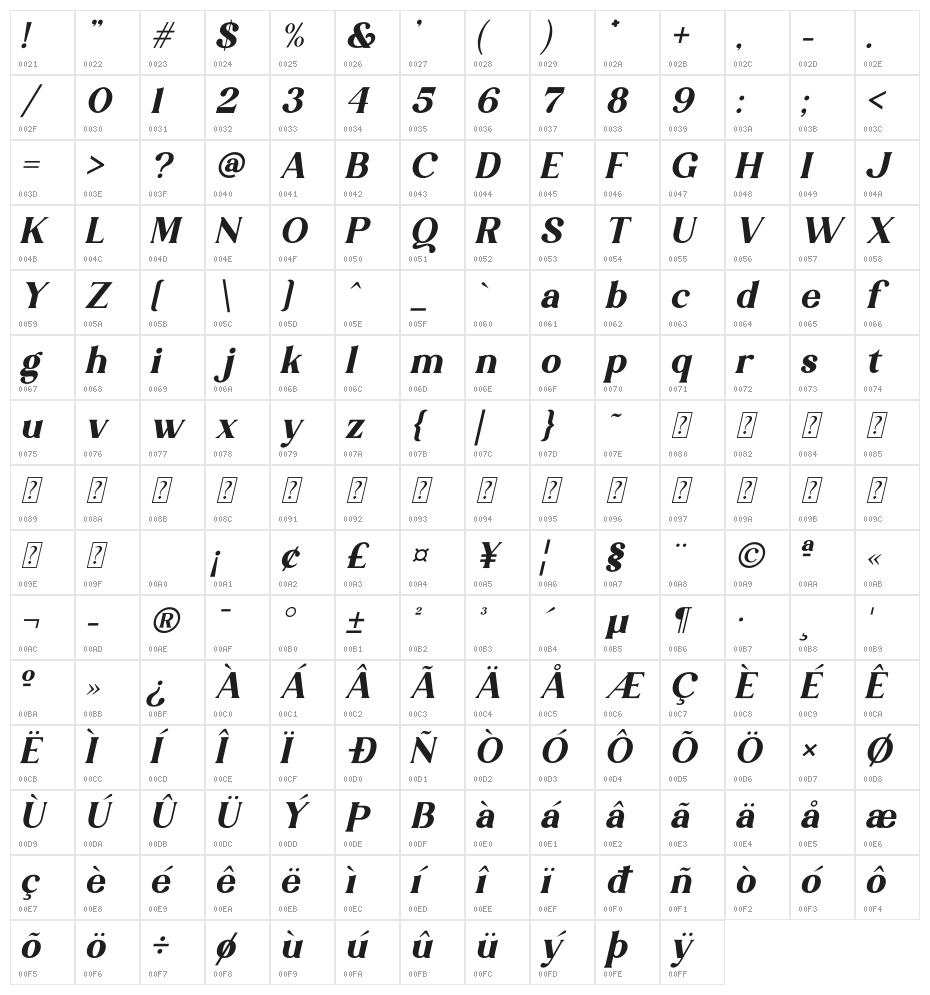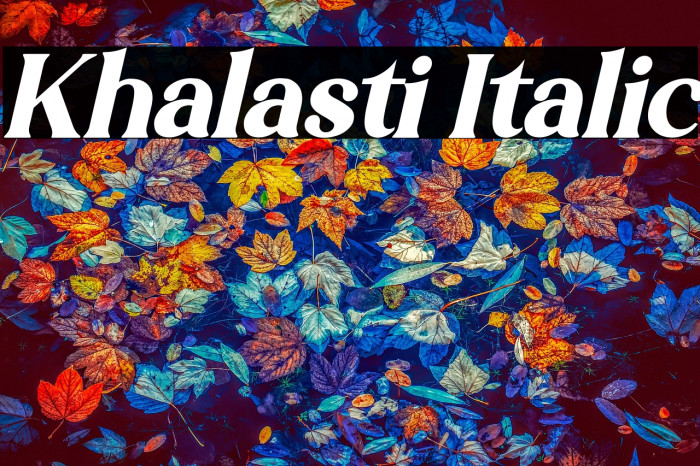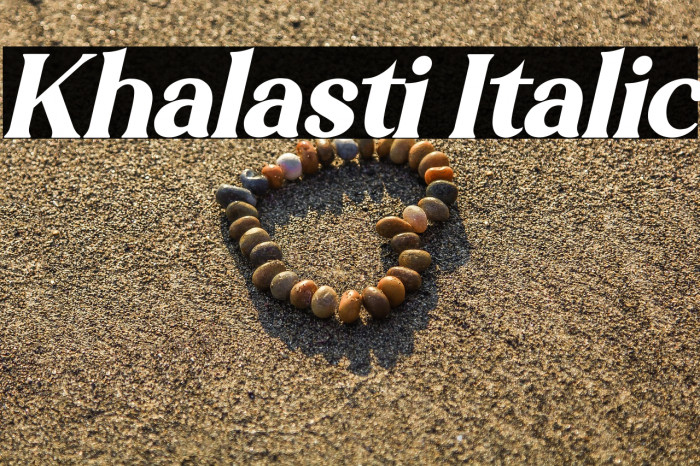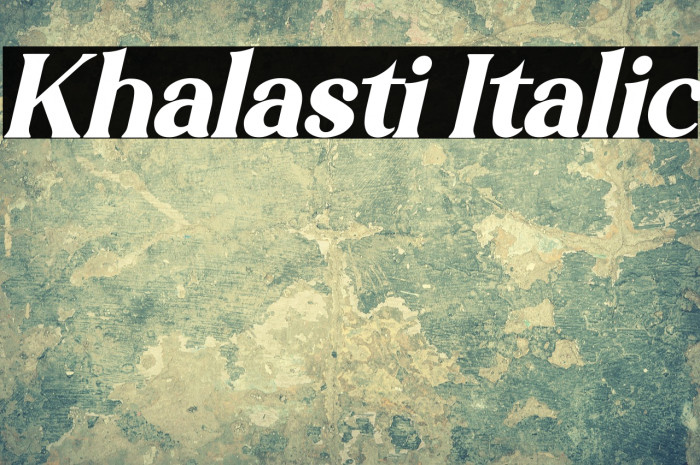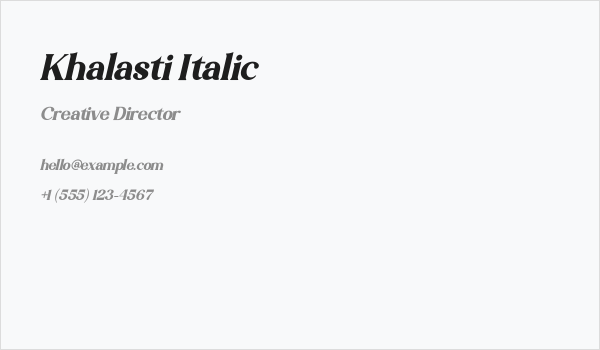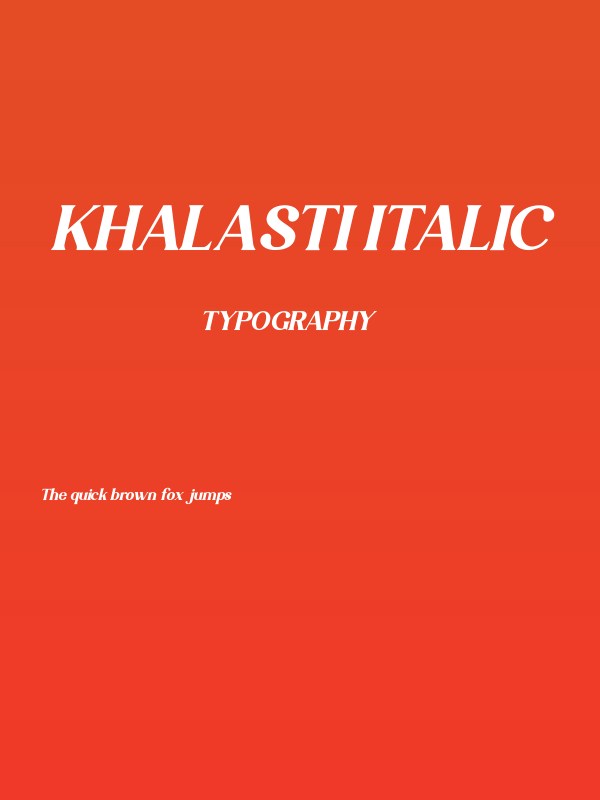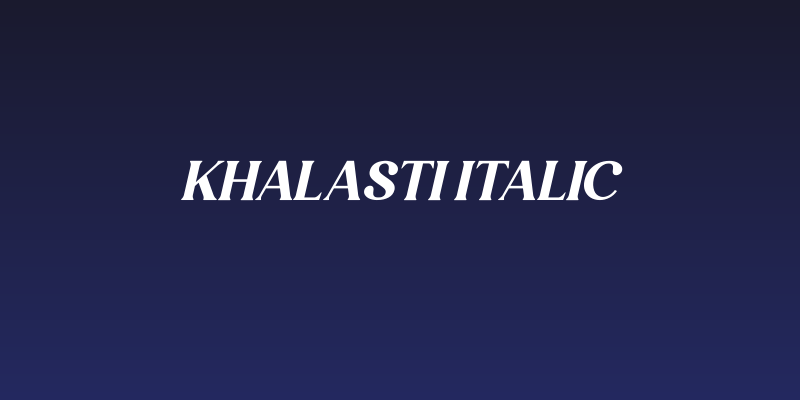
Khalasti Italic Font
Khalasti Italic Description
This font features a dynamic italic style with a strong presence. The letters are slightly slanted, giving a sense of motion and elegance. The strokes are bold and consistent, providing a clear and impactful appearance. The uppercase and lowercase letters maintain a harmonious balance, while the numerals and special characters are designed to complement the overall aesthetic. The font's design is suitable for creating a sophisticated and modern look, making it ideal for various creative applications.
| Proposed Projects | Ideal for branding, advertising, and editorial design projects where a modern and sophisticated look is desired. |